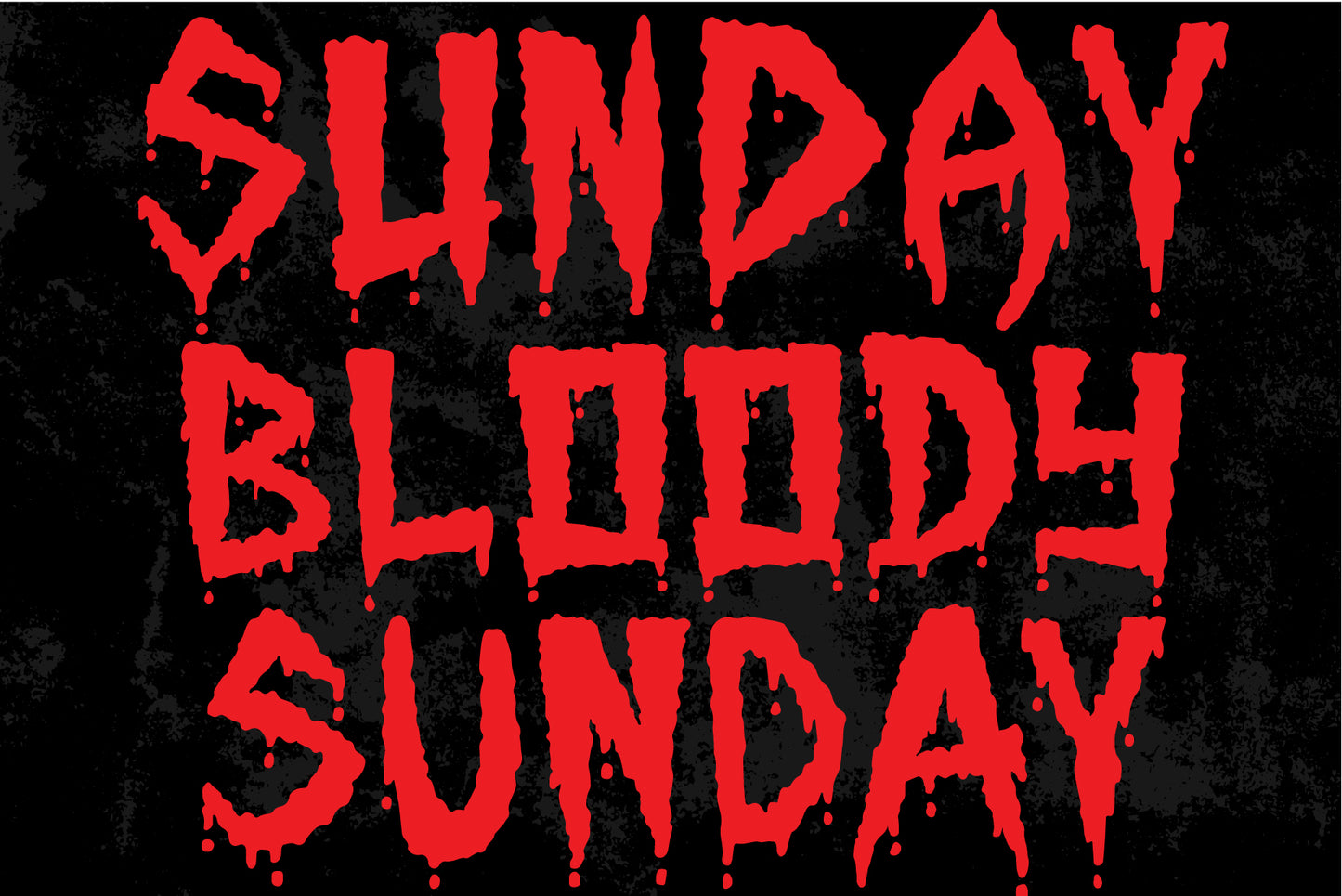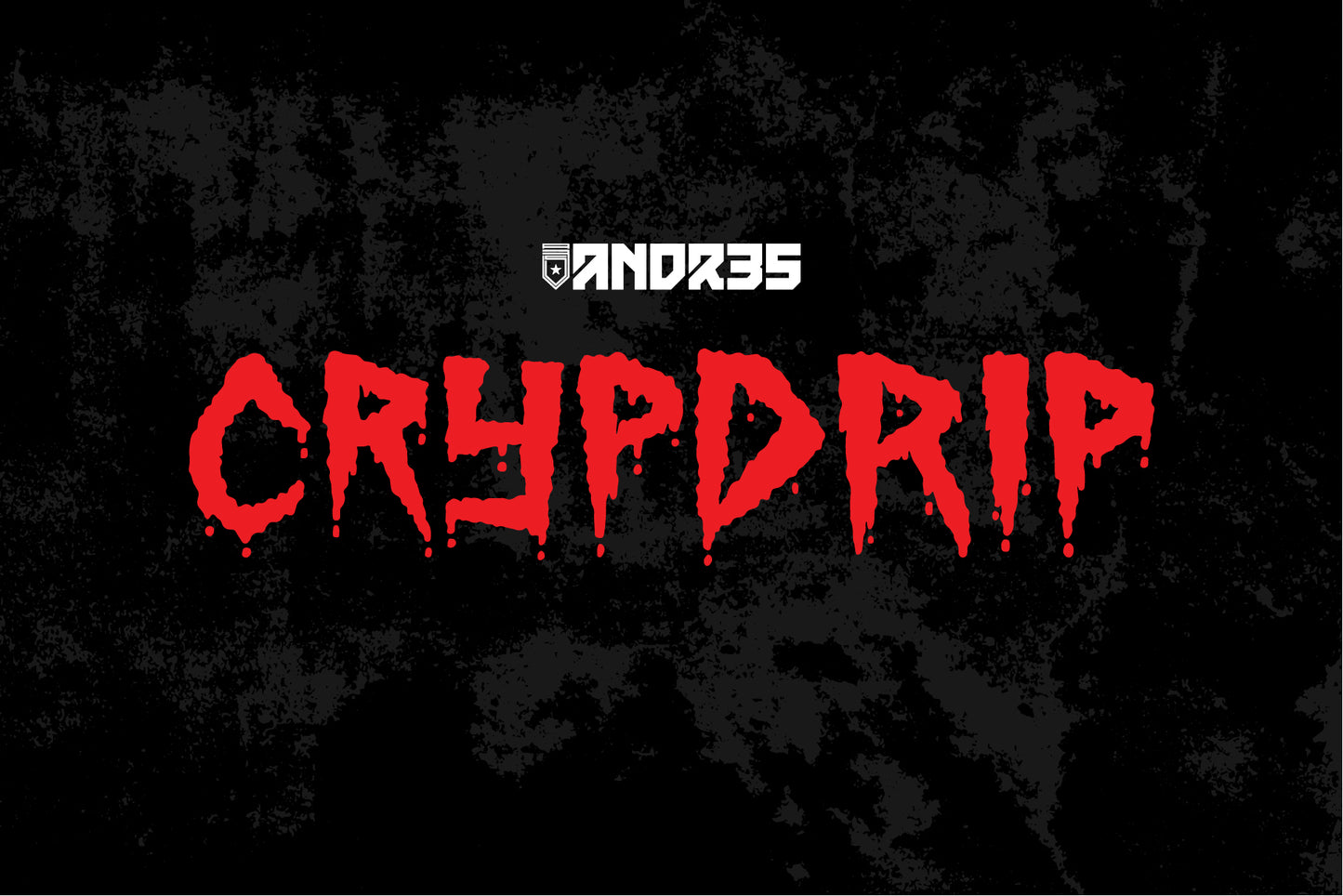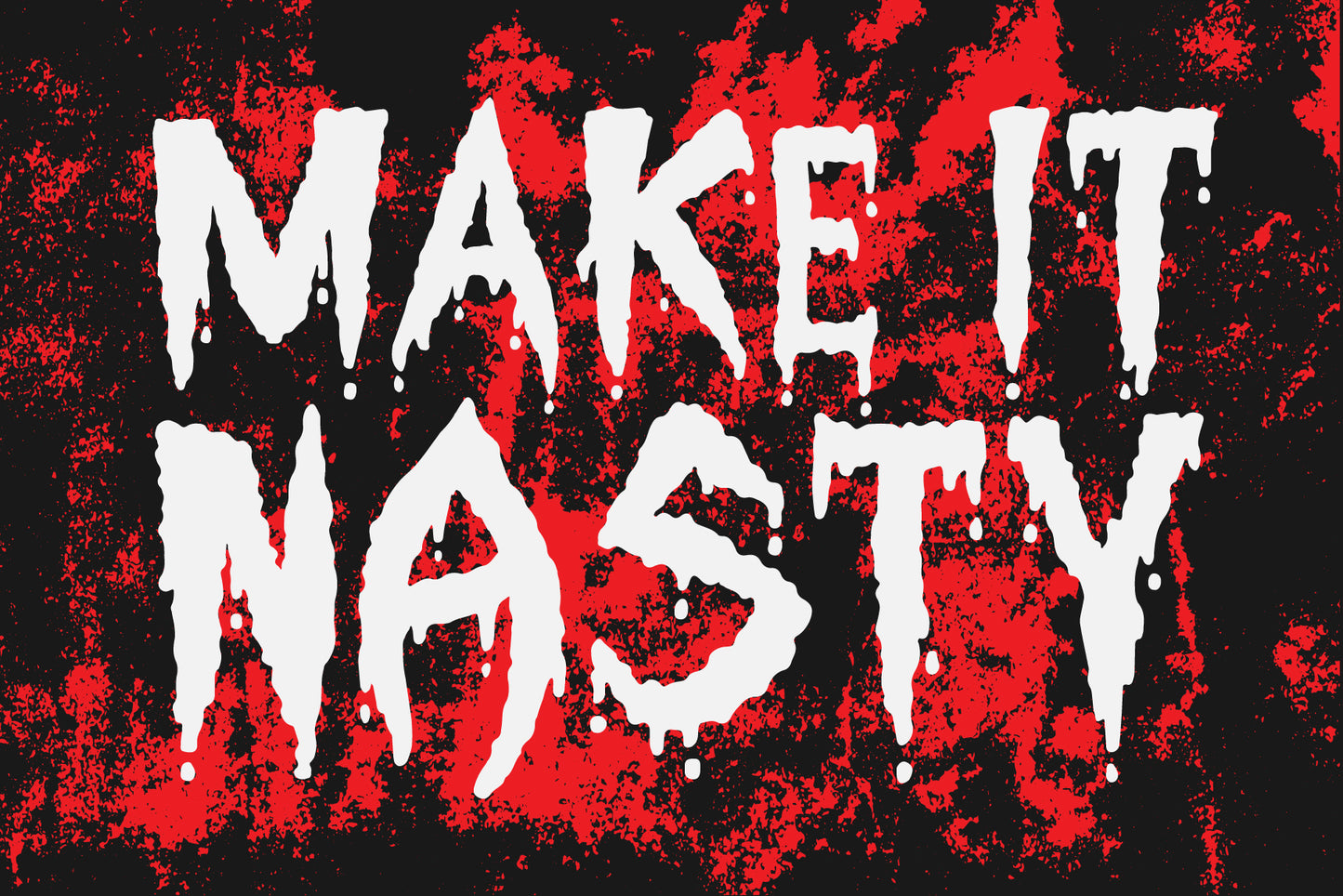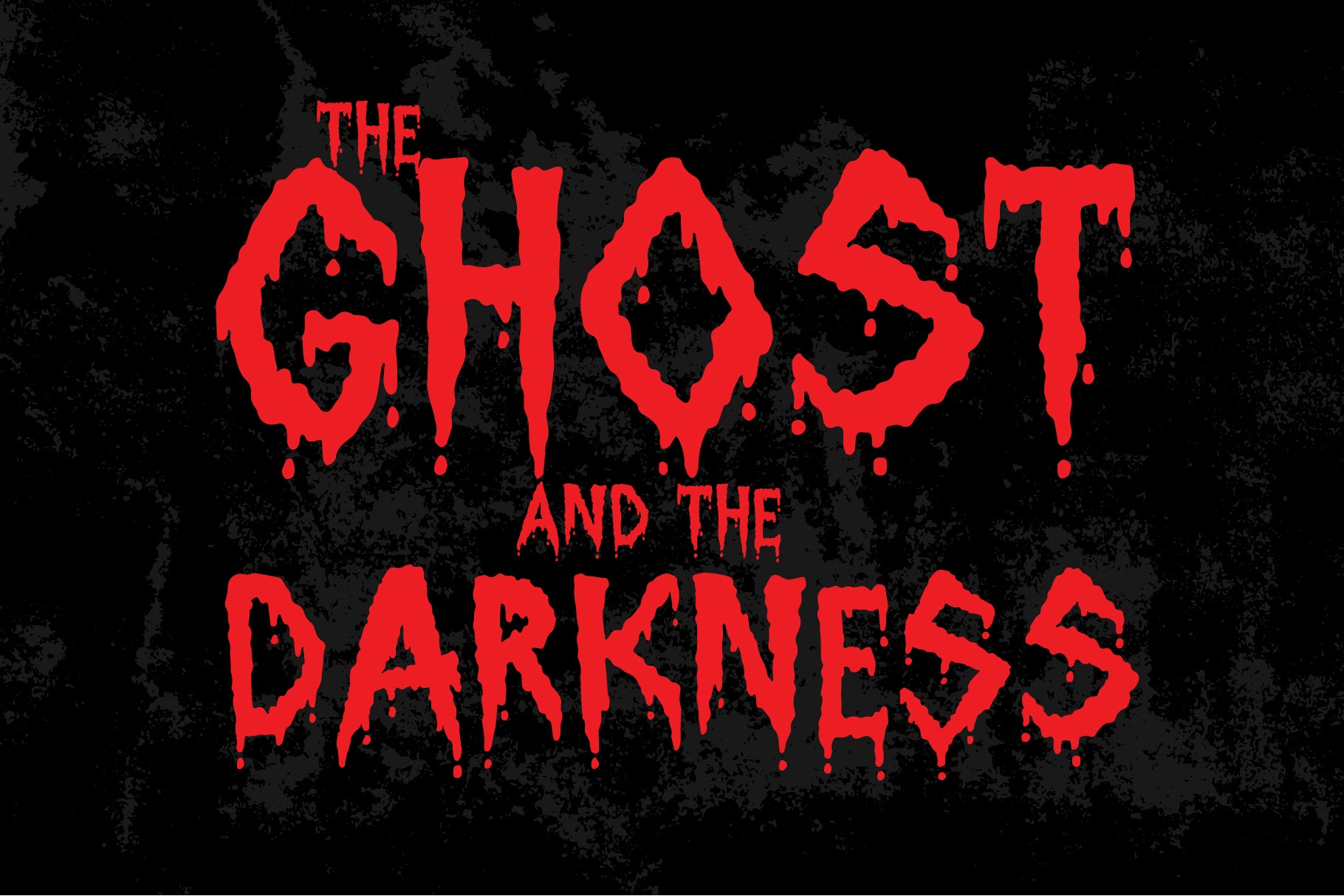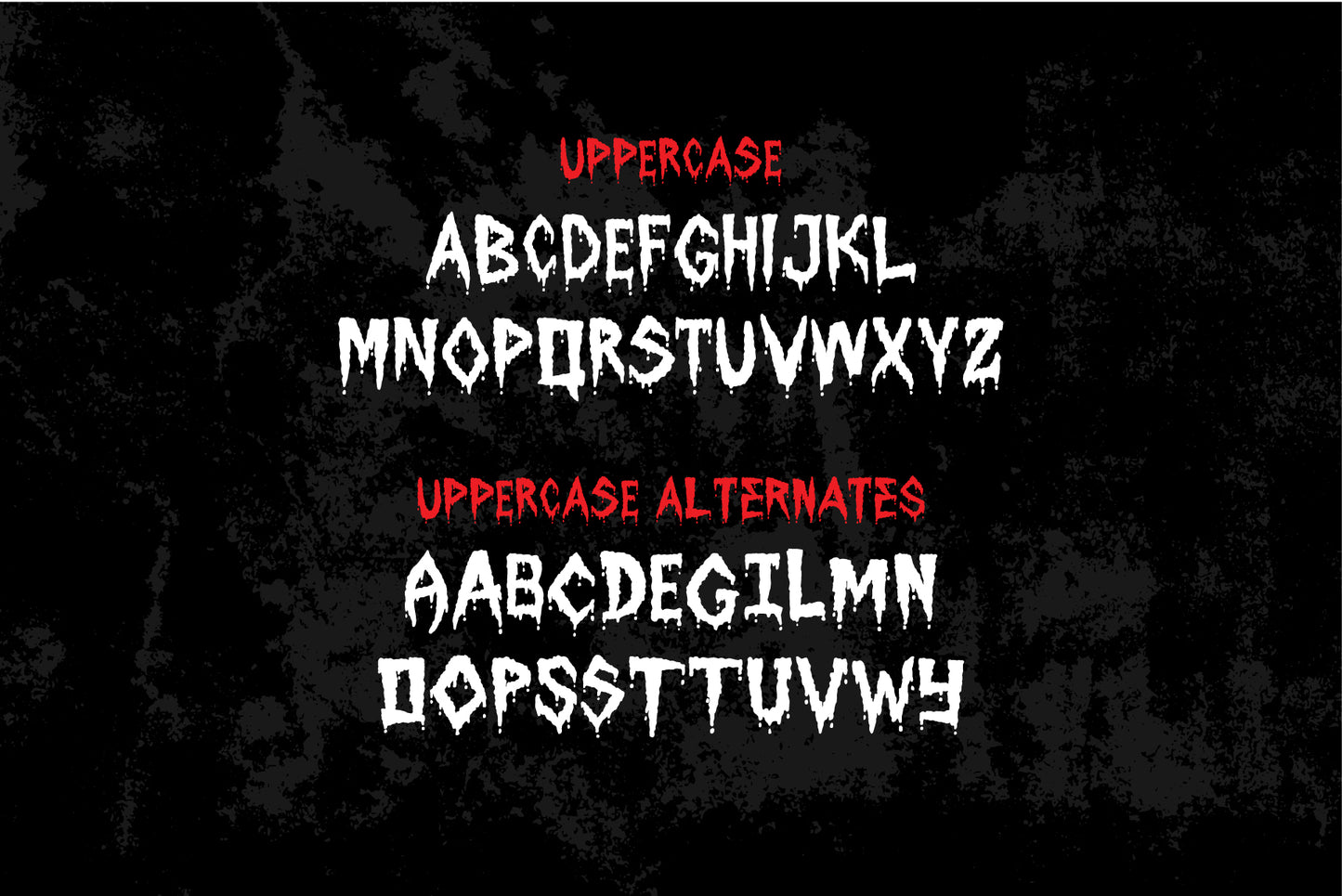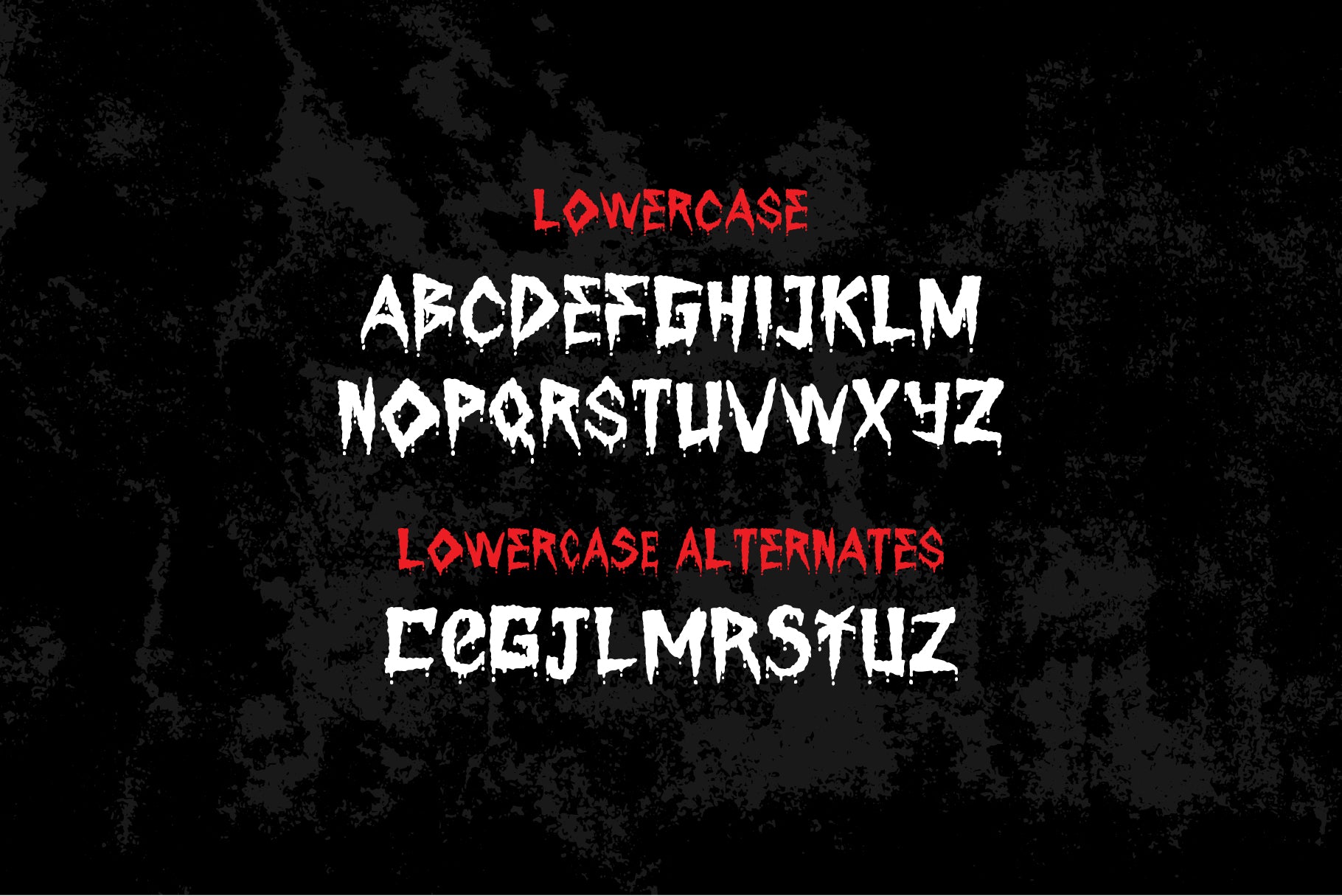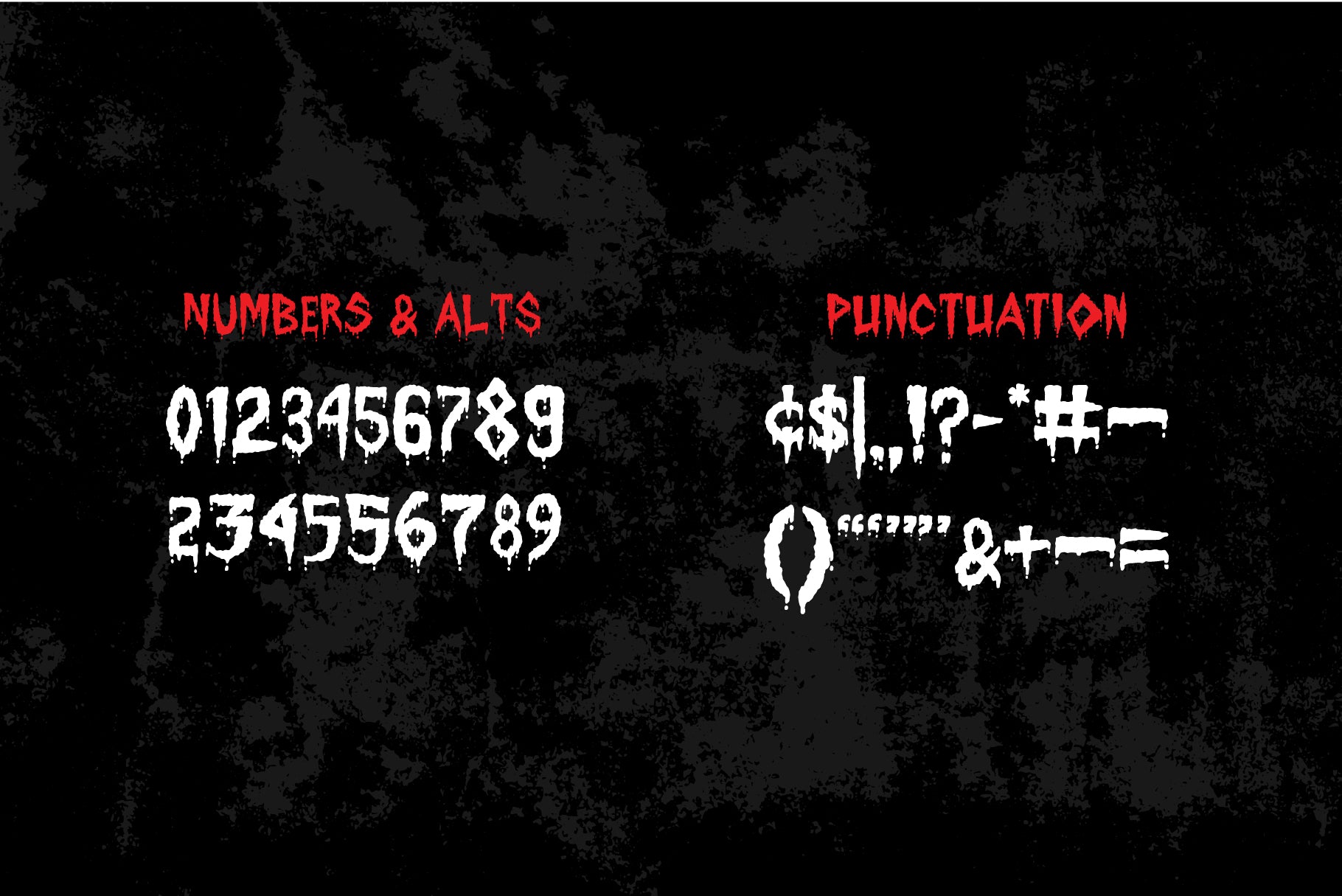
CRYPDRIP Halloween Font
CRYPDRIP is a spooky, hand-drawn Halloween font for headlines, loaded with bloody, eerie vibes. Each letter hand-crafted, will give your designs a personal, custom feel. Create unique looks for nearly every letter and number with a range of alternate glyphs. Perfect for Halloween projects on Etsy, band merch, or apparel...CRYPDRIP delivers a human touch and loads of versatility.
Pro Tips: Make it BIG and Add texture / grunge to really make CRYPDRIP captivate your audience.
FEATURES:
- All Caps style typeface (type in Uppercase or Lowercase for different results)
- Alternate Glyphs (some letters have more than 2 alts)
- Basic Punctuation